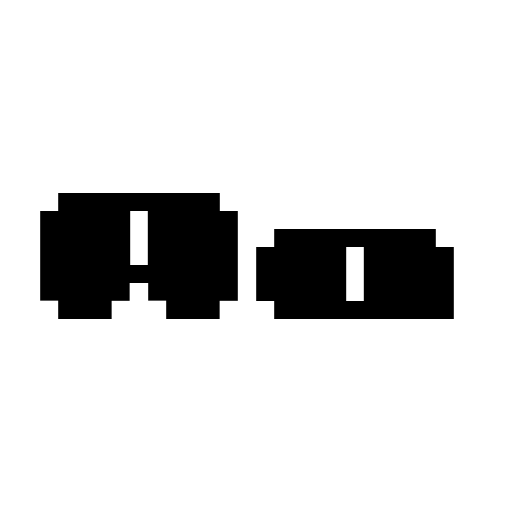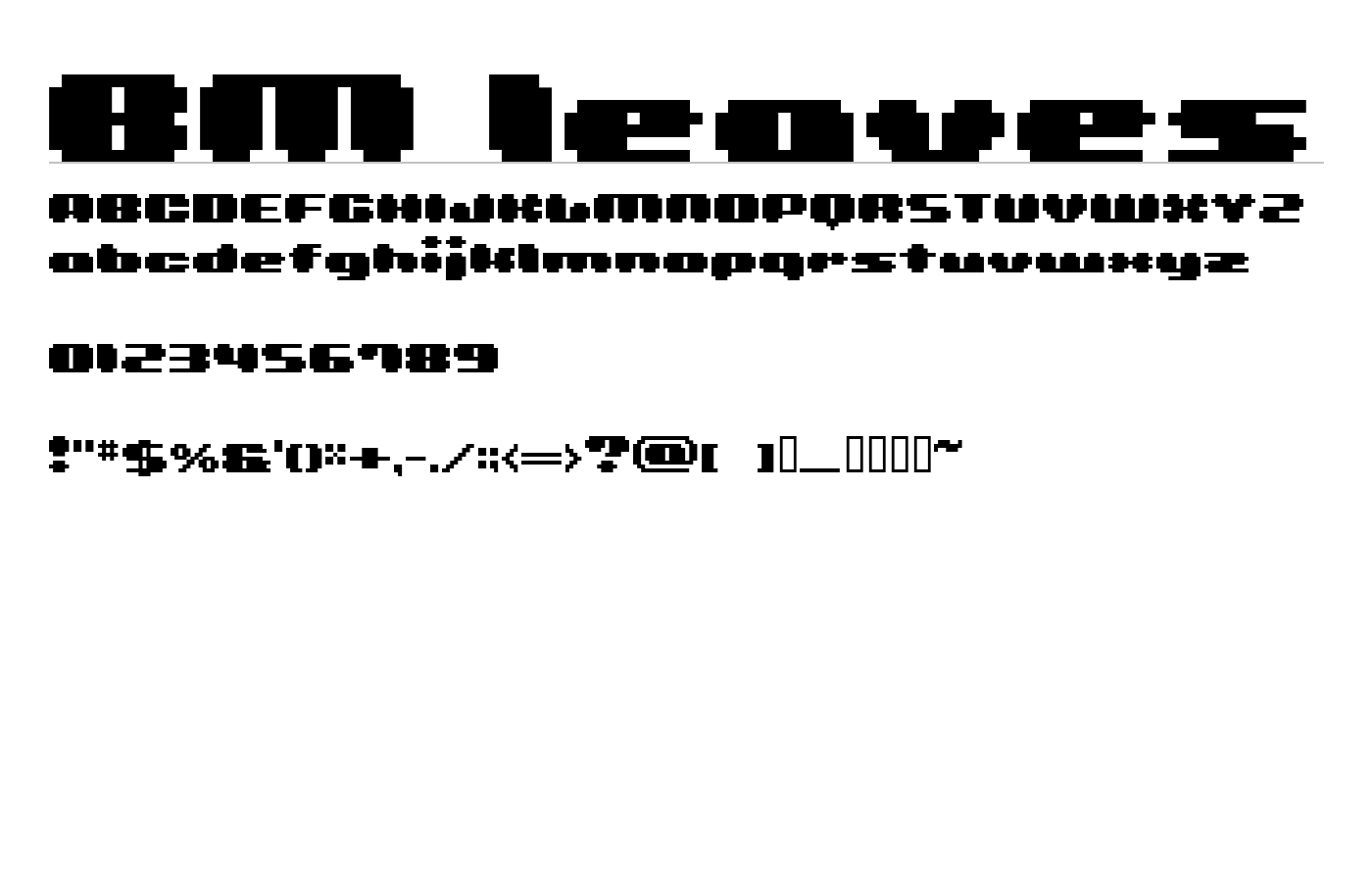
BM Leaves is a bold, blocky display font featuring a pixelated, geometric style with a strong presence and high contrast in stroke thickness. Its unique, modular letterforms evoke a retro, digital or gaming vibe, making it well-suited for headlines, logos, or creative projects that aim for a striking, vintage-tech aesthetic. This font works best where a bold, eye-catching impression is needed, especially for digital-themed or playful branding and poster designs.
BM leaves Font
About BM leaves Font